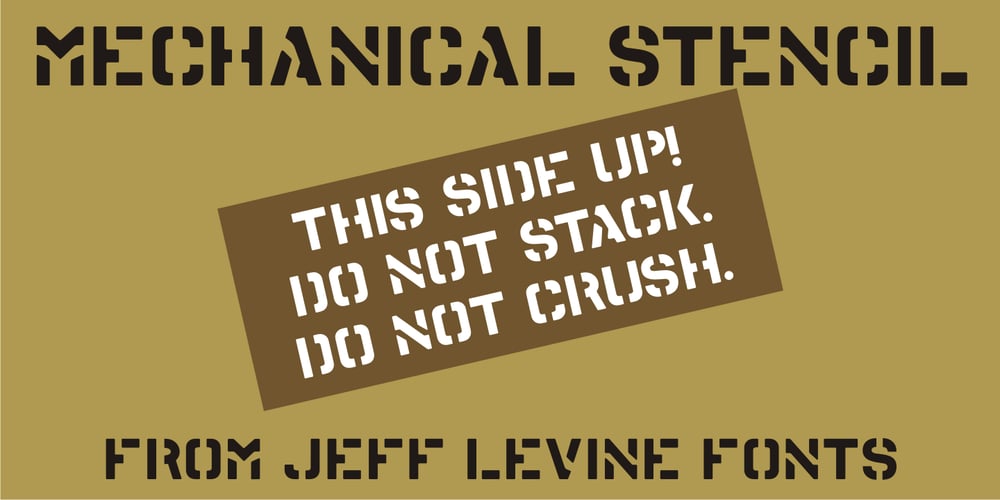
Mechanical Stencil JNL
Mechanical Stencil JNL font
Mechanical Stencil JNL Font Family was designed by Jeff Levine and published by Jeff Levine. Mechanical Stencil JNL contains 1 styles and family package options. For well over a century, stencil machines allowed manufacturers, shippers and even the military to quickly mark and identify objects. Mechanical Stencil JNL was created from examples from one of these machines.